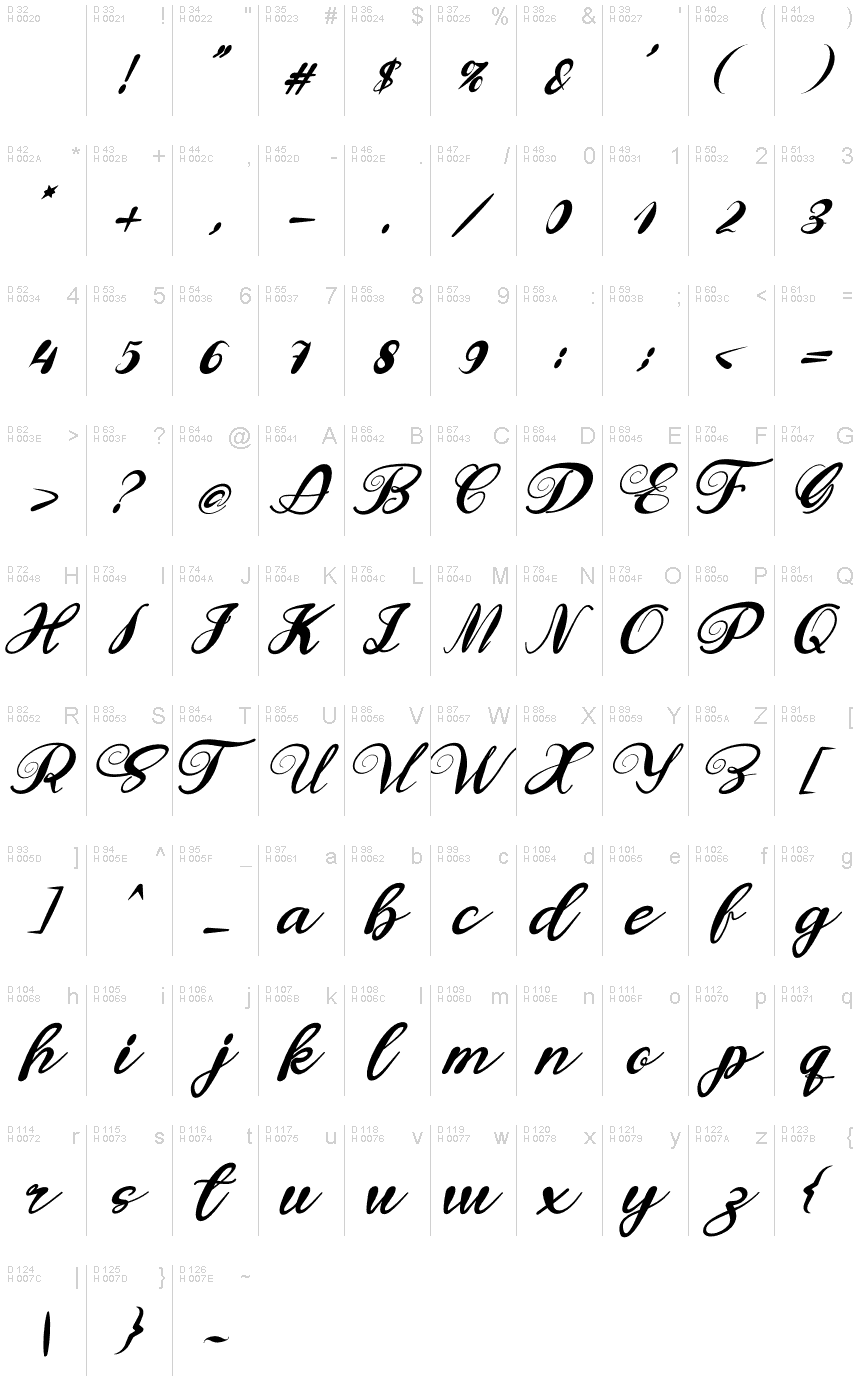
Latte Bold Italic
Latte Bold Italic is the perfect font for projects that require an elegant touch. With its calligraphy style and semi-bold weight, it creates a sense of sophistication that is perfect for wedding invitations, branding materials, and high-end product packaging. The flowing curves and intricate details of this font make it ideal for designers looking to add a touch of refinement to their work. Whether you're creating a logo for a luxury brand or designing an invitation for an upscale event, Latte Bold Italic is sure to impress. Created by Design Vector10, this font belongs to the Latte family – a collection of fonts designed to elevate any project with its unique calligraphic style.